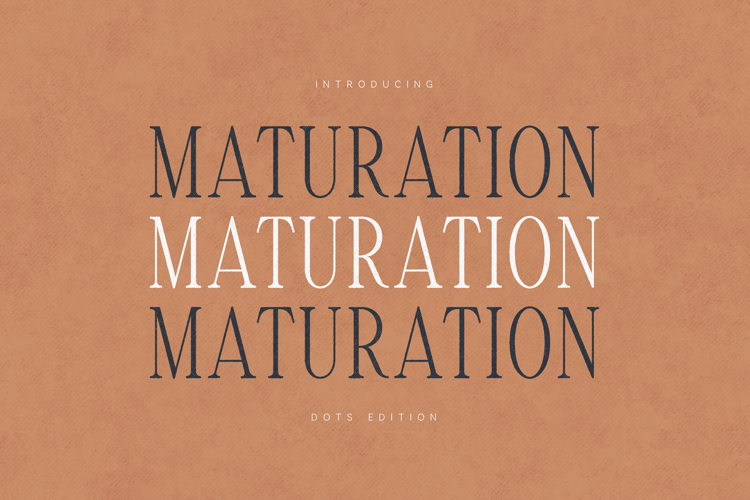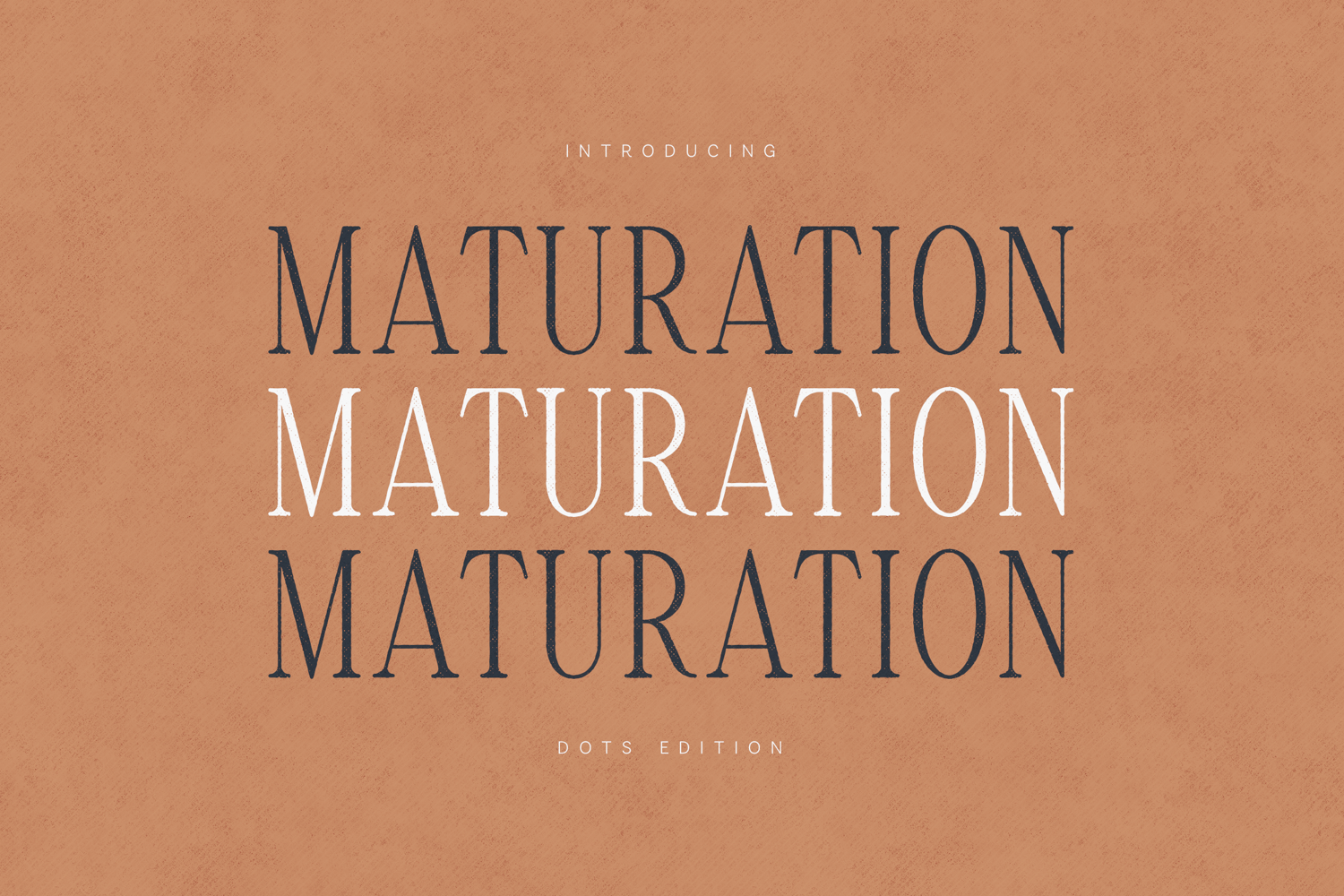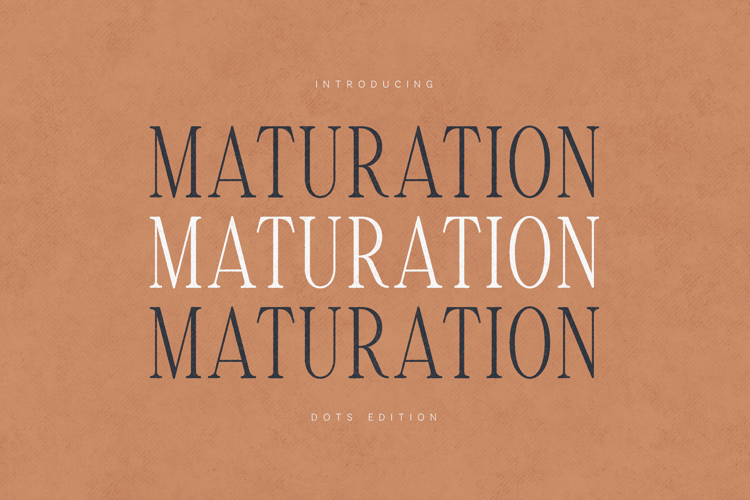
Maturation Elegant Serif Font Family Dots Edition
Maturation is an elegant serif typeface designed for refined branding, modern editorials and sophisticated visual storytelling.
It features a balanced contrast, sculpted serifs and graceful proportions that feel both timeless and contemporary. Perfect for luxury logos, fashion campaigns, book covers, packaging, magazine layouts and elevated typography projects.
The family includes a distinctive Dots Edition variation, adding subtle personality and decorative rhythm while keeping the structure clean and professional.
Maturation works beautifully in headlines, large display settings and carefully spaced editorial layouts.
Ideal For:
Branding, luxury logos, fashion editorials, packaging design, wedding invitations, book covers, posters, creative direction, magazine headlines, modern typography systems.
Clean. Mature. Expressive.